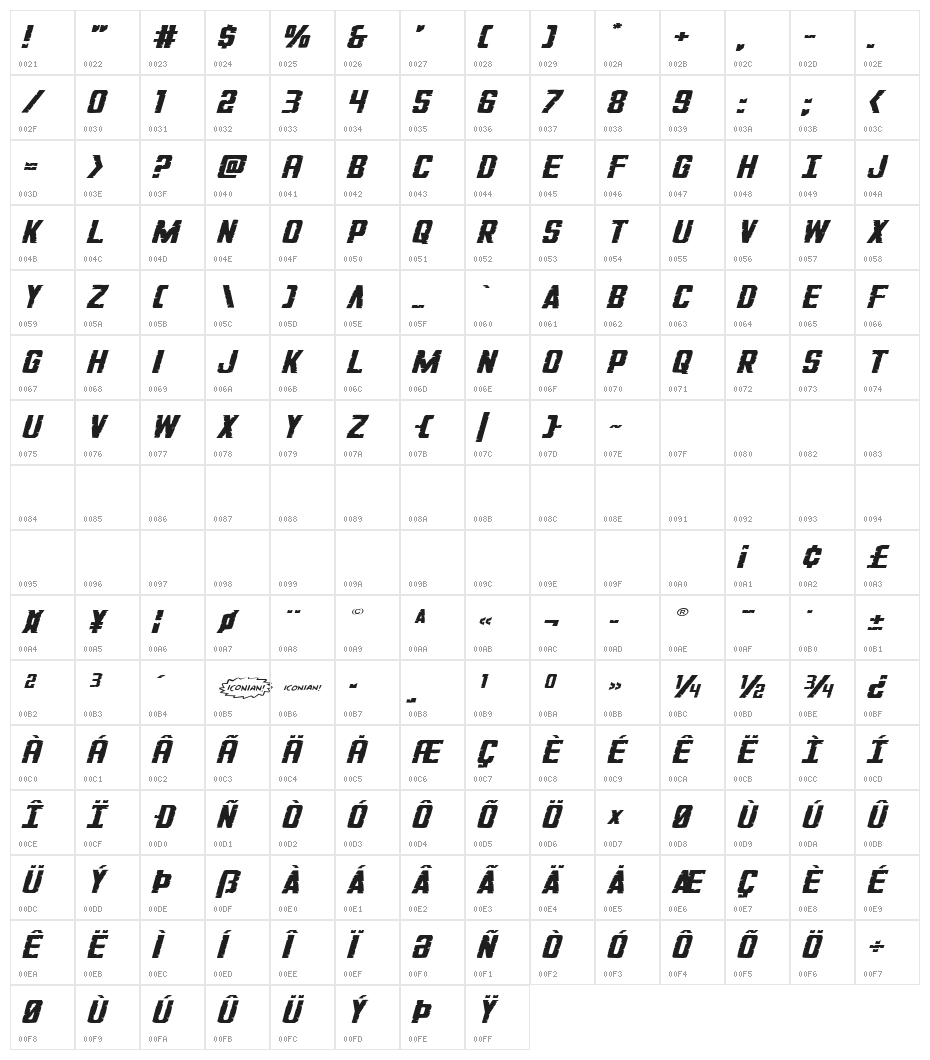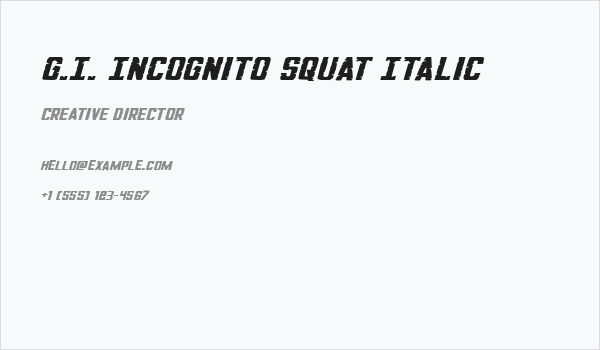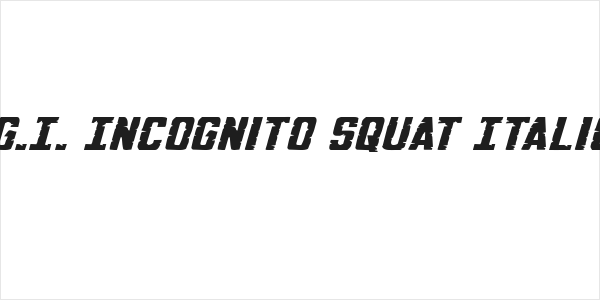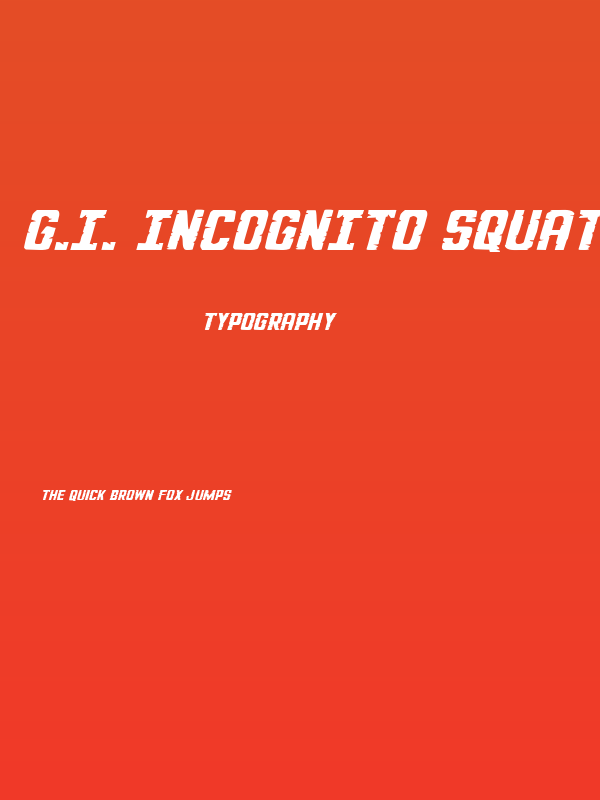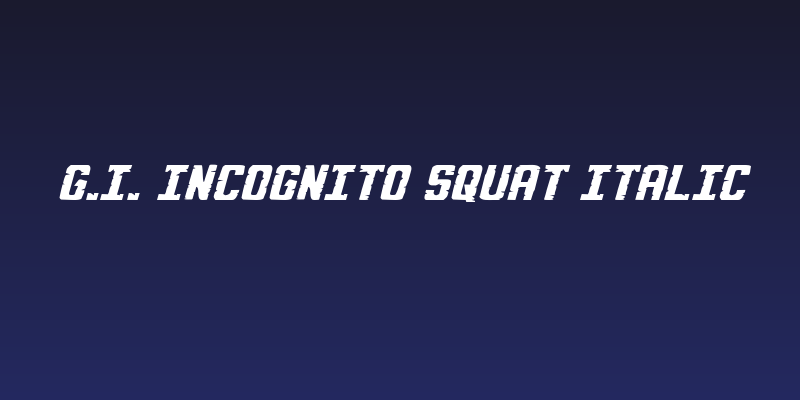
G.I. Incognito Squat Italic Font
G.I. Incognito Squat Italic Description
This font exhibits a bold, italicized style with a distinct, rugged appearance. The characters are heavily stylized with sharp, angular edges and a distressed texture that gives them a worn, gritty look. The uppercase and lowercase letters maintain a consistent slant, enhancing the dynamic and energetic feel of the typeface. The numbers and special characters follow the same design principles, ensuring uniformity across all glyphs. This font's unique aesthetic makes it stand out, making it suitable for projects that require a bold and impactful visual statement.
| Proposed Projects | Ideal for branding, posters, sports team logos, and any design needing a bold, dynamic impact. |